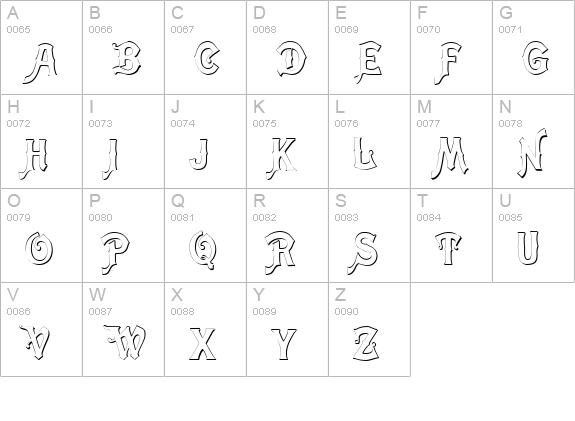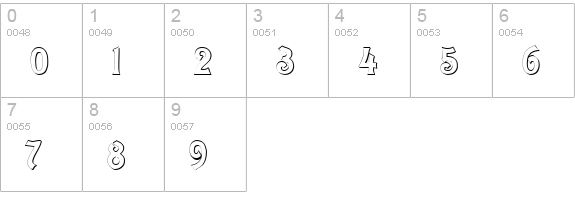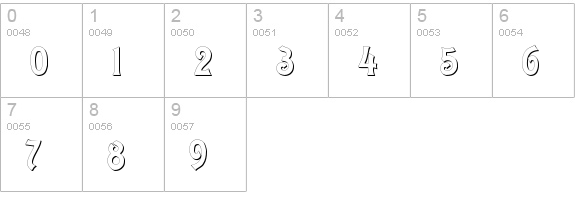
Meistersinger Shadow Font Details
Meistersinger Shadow font is a stunning display typeface that exudes elegance and sophistication. Its unique design features intricate details and sharp lines that make it perfect for adding a touch of drama to any project. The Meistersinger Shadow font is versatile and can be used for various design projects, from branding to packaging to editorial design. What sets this font apart is its striking appearance and bold presence. The shadow effect adds depth and dimension, creating a visually appealing text that demands attention. Whether you're looking to make a statement with your design or simply want to add a touch of flair, Meistersinger Shadow font is the perfect choice. And the best part? Meistersinger Shadow font is completely free to download at FontsMarket.com. This means you can elevate your design projects without having to worry about breaking the bank. So why wait? Download Meistersinger Shadow font today and unleash your creativity with this stunning typeface.